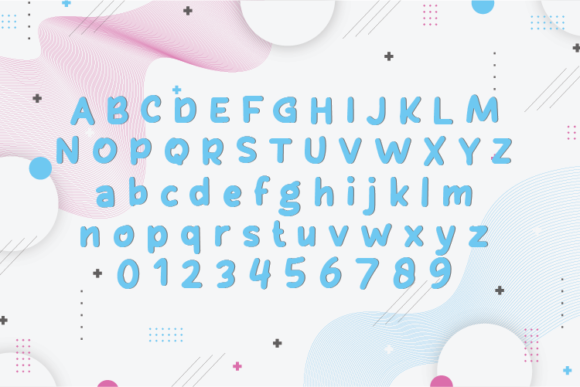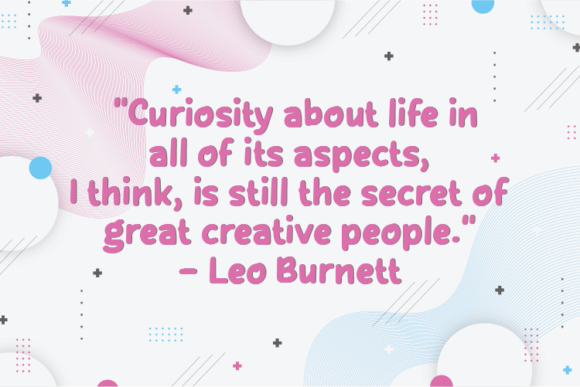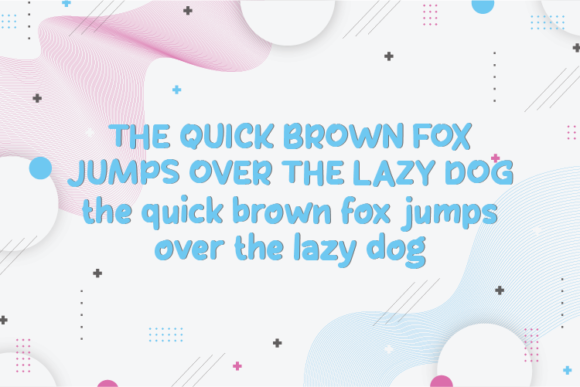
Introduction to Moody Sprinkle Font
As designers, we’ve all been there – staring at a blank canvas, trying to bring a creative project to life. The spark of inspiration strikes, and suddenly, our minds are racing with ideas. For me, it was a quiet morning, sipping coffee, and browsing through design resources that sparked the idea to dive deeper into the world of unique fonts.
That’s when I stumbled upon the Moody Sprinkle Font – a natural handwritten font that immediately caught my attention. Its one-of-a-kind design, without any alterations to its node indentation, sets it apart from the rest. This makes it a valuable addition to any designer’s toolkit, perfect for quotes, notes, tees, and product design projects. With its high-quality design and transparent background, the Moody Sprinkle Font is a game-changer for creatives looking to add a personal touch to their work.
With its free download availability, designers can now easily incorporate this stunning font into their creative projects, elevating their designs to new heights. In this article, we’ll delve deeper into the world of the Moody Sprinkle Font, exploring its unique features and why it’s a must-have for designers of all levels.
Key Features of Moody Sprinkle Font
- High-quality, free font download ideal for creative projects
- Unique, whimsical design inspired by colorful sprinkles
- Transparent background, allowing for seamless layering and customization
- Perfect design resource for adding a touch of whimsy to any project or presentation
Honest Review: Moody Sprinkle Font
I recently had the chance to work with the Moody Sprinkle Font, and I must say it’s been a game-changer for my design projects. The first thing that caught my eye was the unique and quirky aesthetic of this font. It’s perfect for adding a touch of whimsy to any creative project.
One of the standout features of the Moody Sprinkle Font is its high quality. The font is crisp and clear, making it perfect for use on both light and dark backgrounds. Plus, it’s a free download, making it an excellent addition to any design resource.
Here are some of the things that work well with the Moody Sprinkle Font:
- ✨ Unique and quirky aesthetic
- ✨ High quality and crisp lines
- ✨ Suitable for use on transparent backgrounds
- ✨ Perfect for creative projects that need a touch of whimsy
That being said, there are a few limitations to keep in mind:
- ⚠️ Limited character set – not ideal for long blocks of text
- ⚠️ May not be suitable for formal or professional designs
Overall, I’m thoroughly impressed with the Moody Sprinkle Font. It’s a fantastic addition to any design resource, and I can see myself using it again and again in my creative projects.
Designing with Moody Sprinkle Font in Canva
Tips for Getting the Most Out of Moody Sprinkle Font
To get the most out of the Moody Sprinkle Font, be sure to experiment with different font sizes, colors, and combinations to find the perfect look for your design. You can also use the font in conjunction with other design elements, such as graphics and images, to create a unique and eye-catching visual effect.
Common Use Cases for Moody Sprinkle Font
The Moody Sprinkle Font is perfect for a variety of creative projects, including birthday invitations, wedding stationery, and social media graphics. You can also use it to add a touch of personality to your blog or website. With its high-quality design and free download option, the Moody Sprinkle Font is a valuable resource for any designer or creative professional.